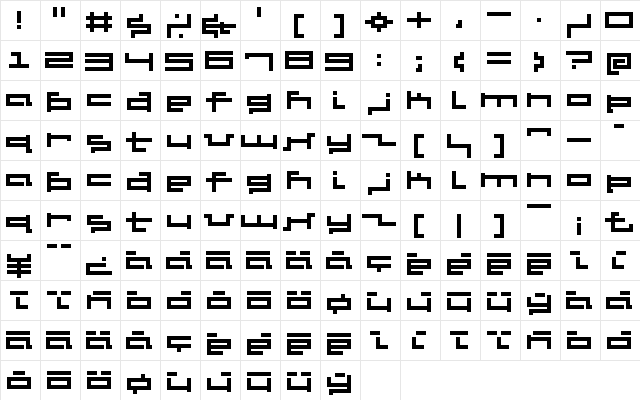
V5 Cuadra2 Thick Free Font
V5 Cuadra2 Thick
Style: Thick
Design Context for V5 Cuadra2
V5 Cuadra2 is a composed and adaptable typeface that performs quietly and consistently across a wide range of design contexts.